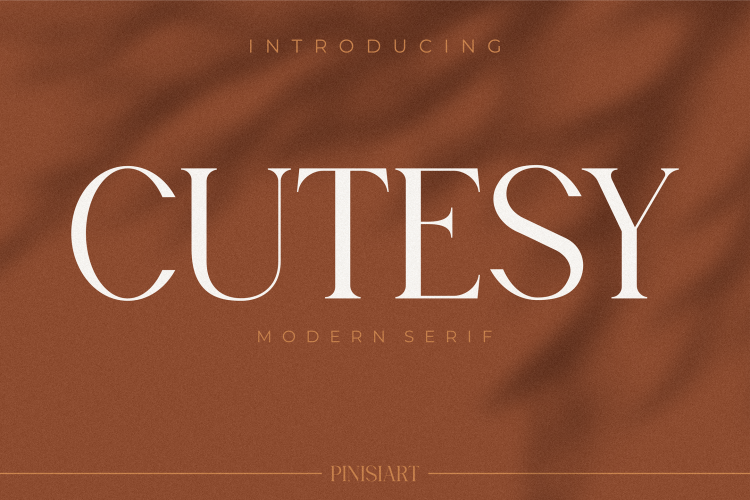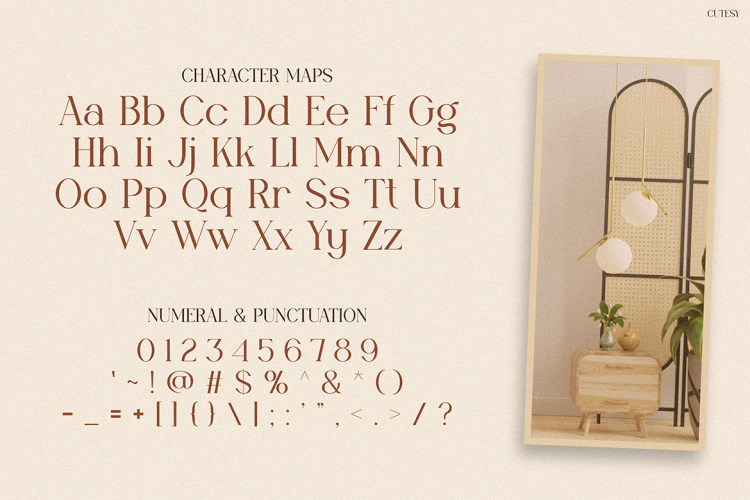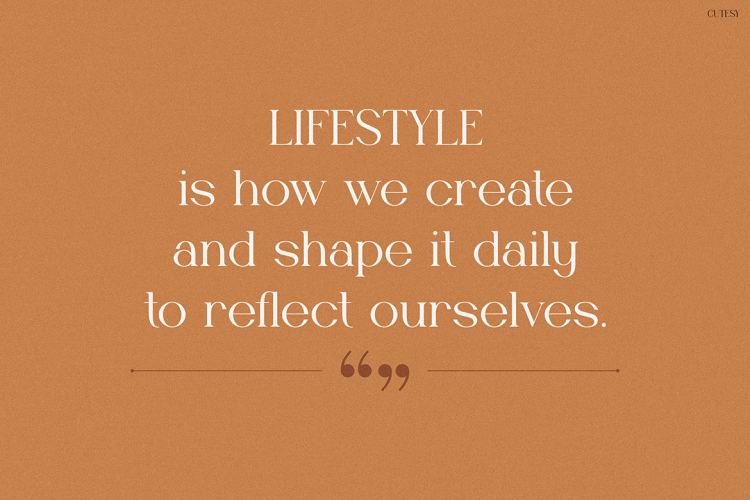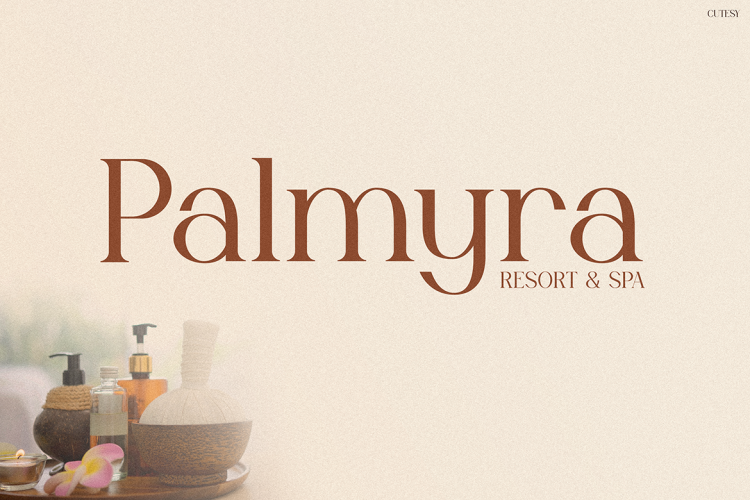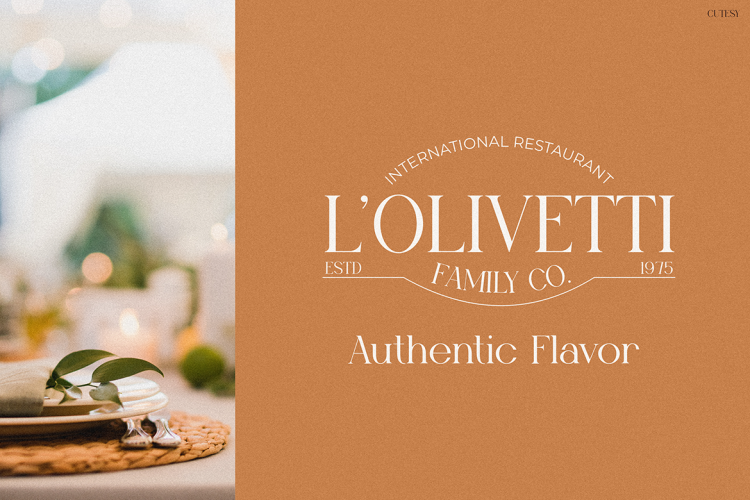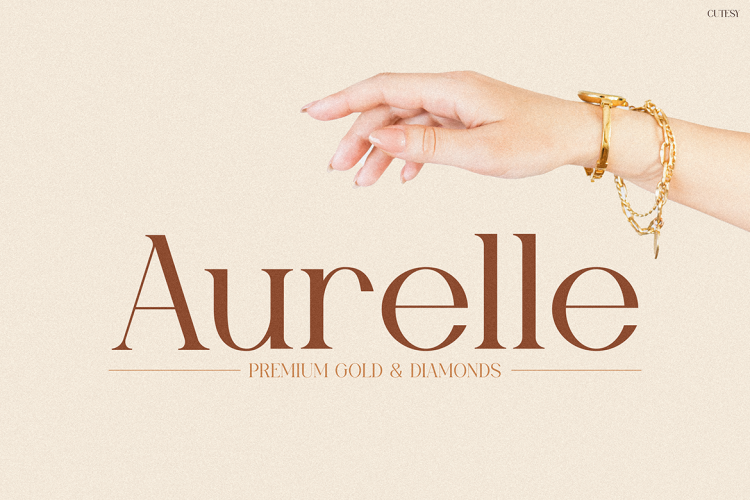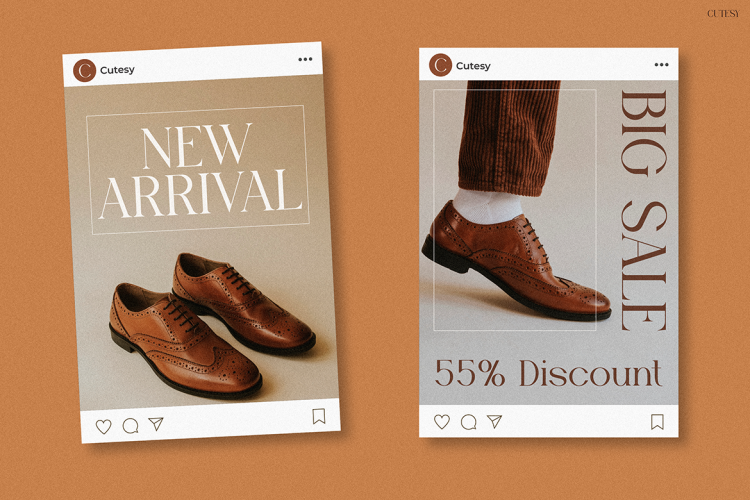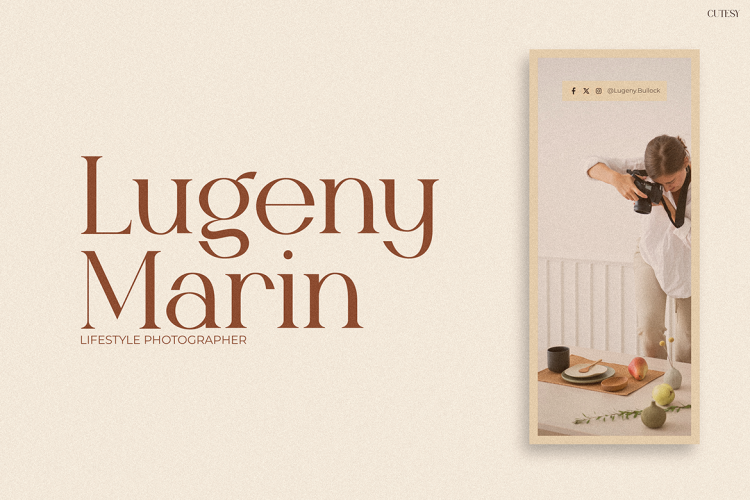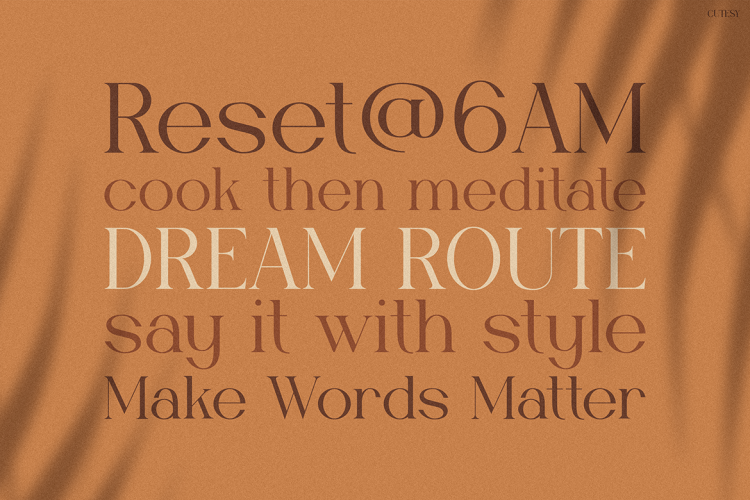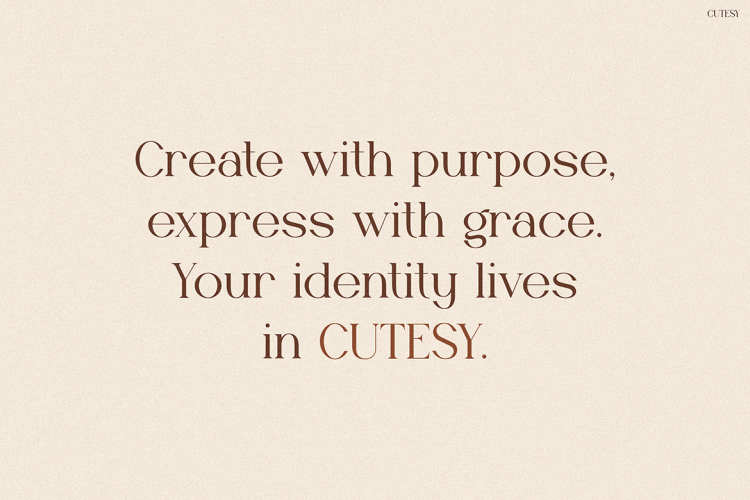
Instagram Font Cutesy is a stylish typeface that blends modern elegance with vintage charm. As a result, it instantly elevates any visual project. Whether you’re designing for fashion, jewelry, or lifestyle brands, this font brings a sense of luxury and warmth. Its sharp serifs and soft curves create a perfect balance between sophistication and approachability. Consequently, every word feels intentional and beautifully crafted and each word looks luxurious yet welcoming.
Moreover, Cutesy is tailored for visual platforms like Instagram. It stands out effortlessly in clean, minimal layouts. Not only does it grab attention, but it also maintains a refined and cohesive tone. Therefore, whether you’re announcing a product launch, highlighting a special discount, or introducing a premium collection, this font makes your message look polished and compelling, It adds an editorial, high-fashion look to your message.
Instagram Font Cutesy It’s Best For
Thanks to its clean design, the font creates an upscale, professional look. As a result, fashion and lifestyle brands can rely on it to strengthen their brand image. The font pairs effortlessly with the delicate, feminine style of the image. Because of this, it reinforces the brand’s identity as refined and luxurious. Clearly, the Cutesy font adapts well to both product-centered posts and branding visuals.
Instagram Font Cutesy is especially useful for creatives, influencers, fashion boutiques, jewelers, and marketers. In particular, it benefits brands looking to elevate their Instagram feed with elegance and clarity. Additionally, its structure ensures excellent readability, even in mobile formats. Thus, your message will always come through — beautifully and effectively.
In conclusion, Instagram Font Cutesy combines elegance, clarity, and charm to help your brand shine online. Whether you’re selling premium products or building a stylish feed, this font gives your content the luxurious feel it deserves. So why wait? Add Cutesy to your design toolkit and captivate your audience today.